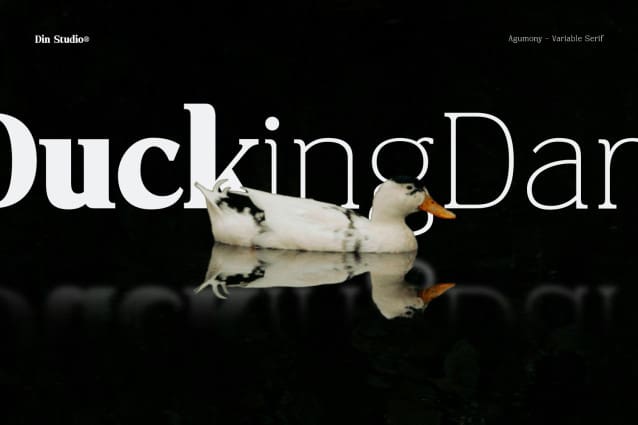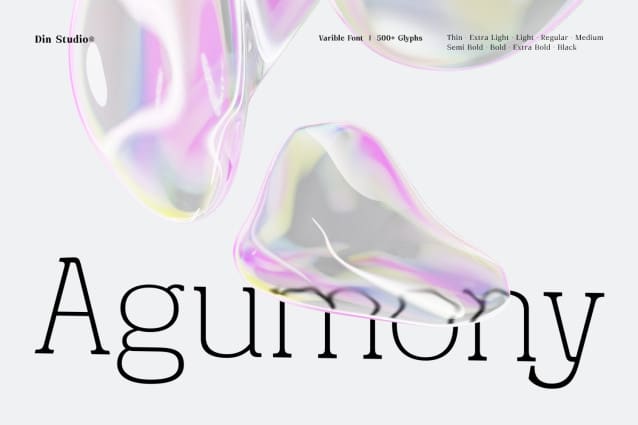
Agumony Font
Agumony Font is a sleek sans serif font family crafted in a simple and modern style. With 9 different weights, it offers unparalleled versatility, allowing you the freedom to create designs that range from minimalist to bold. Agumony is your go-to font for a clean, contemporary look.